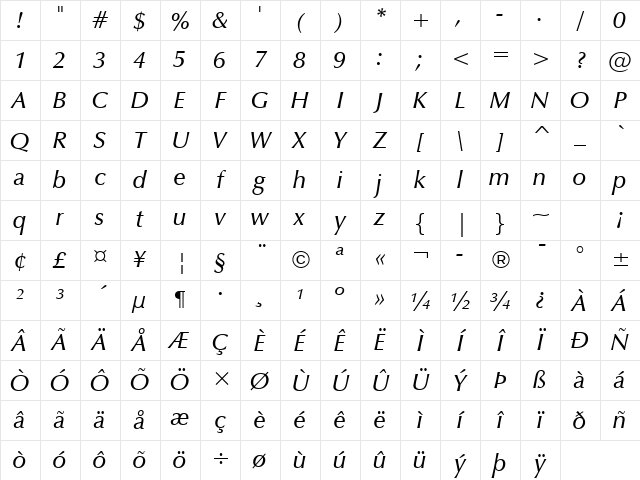
ZapfHumnst Dm BT Demi Italic
Style: Demi Italic
Design Context for ZapfHumnst Dm BT
ZapfHumnst Dm BT is a composed and adaptable typeface that performs quietly and consistently across a wide range of design contexts. The slanted form adds forward momentum and visual energy.
Pro Tip: Use ZapfHumnst Dm BT for emphasis, pull quotes, and subheadings where its slanted energy can add rhythm to the layout.